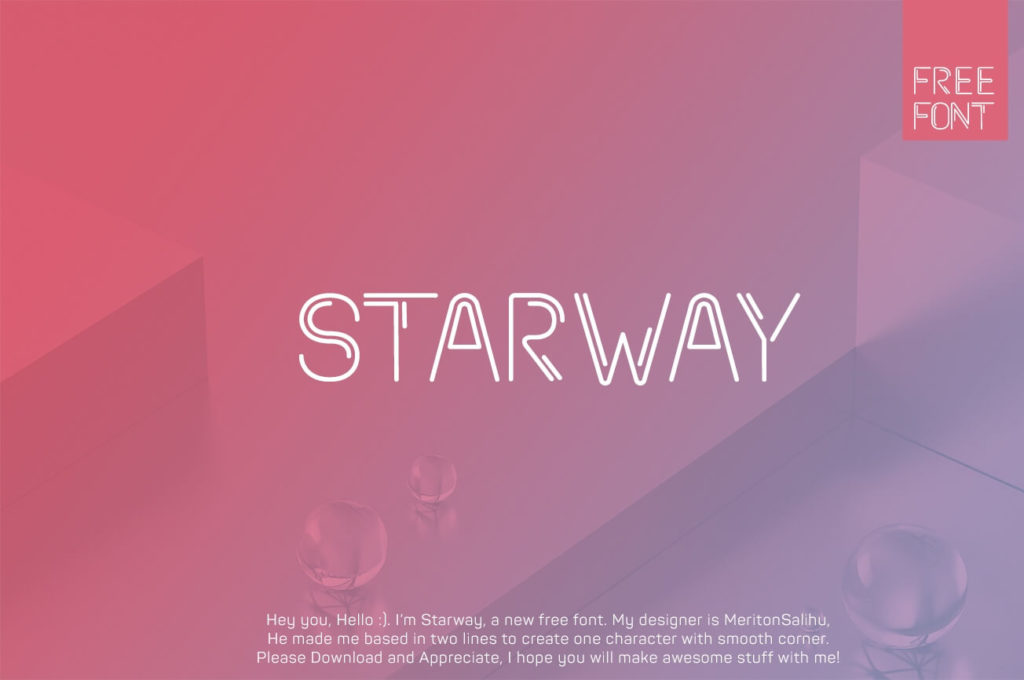
Free Starway Font
If you're looking to add a cosmic touch to your typeface toolbox, then this font is certainly for you. Designed by Meriton Salihu from Kosovo, Starway is a wonderful addition to any font library.